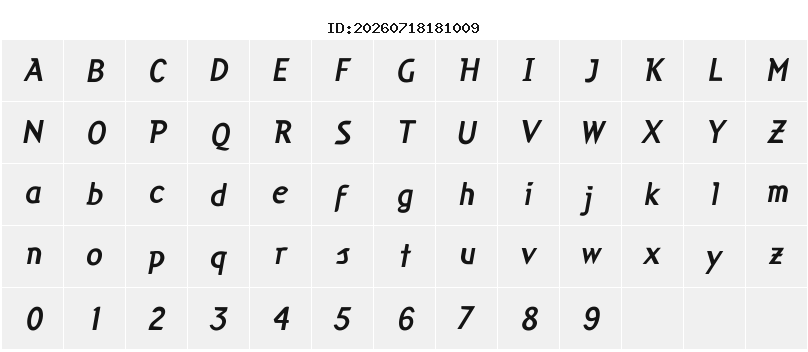
Cuban Preview
• Font Name: Cuban
• Font ID: TransType 2 PC;Cuban-RegularItalic;001.000;05/28/05 08:00:04
• Full Font Name: Cuban-RegularItalic
• PostScript Name: Cuban-RegularItalic
About Cuban.ttf
Cuban.ttf is a modern, elegant sans-serif font designed for ultimate readability and visual harmony. Perfect for branding, headlines, web design, and print materials.